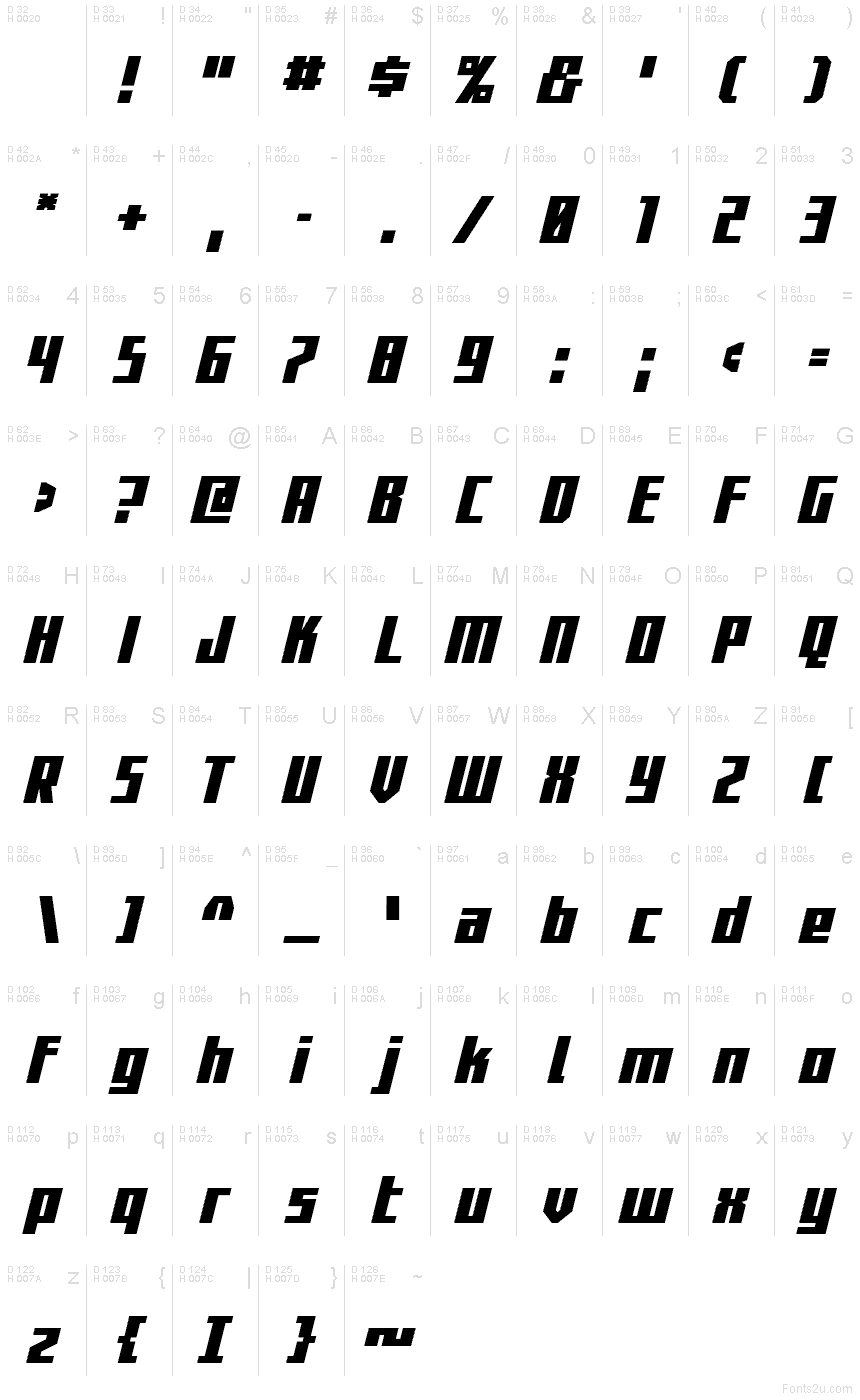
Capitol City Bold
Capitol City Bold font by Iconian Fonts is a bold and condensed display typeface characterized by its sleek, angular appearance. An energetic ambiance is achieved through streamlined letterforms and their subtle modernist flair. All together, this futuristic typeface has some serious potential in your visual design projects.